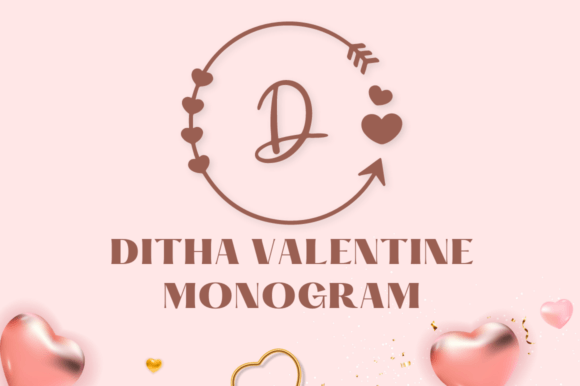
Introduction to Ditha Valentine Monogram Font
Ditha Valentine Monogram is a cute decorative arrow font.
Fall in love with its lovely characters, and use them for your special occasions, business designs, logos, branding, social media posts, and wedding cards Comes in 2 styles.
Key Features of Ditha Valentine Monogram Font